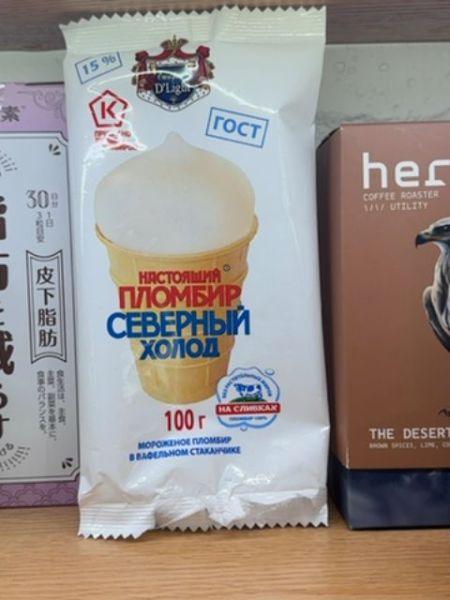
Plombir Severny Kholod
A traditional Russian ice cream made with rich, creamy textures, typically enjoyed in a waffle cone.
Country of Origin
Russia
Typography
The typography features bold, sans-serif Cyrillic letters in red and blue, capturing attention and emphasizing the product's traditional roots. The font style reflects a blend of modern and classic elements, maintaining clarity and readability while adding to the cultural character of the packaging.
Packaging
The packaging is a simple, plastic wrap with a white background that features an illustration of an ice cream cone prominently in the center. It has a traditional aesthetic with use of Cyrillic script and a few colorful accents in red and blue.
Facts
- Popular in Russia for its creamy and rich texture.
- Often made with high butterfat content.
- Traditionally, it's a vanilla-flavored ice cream.